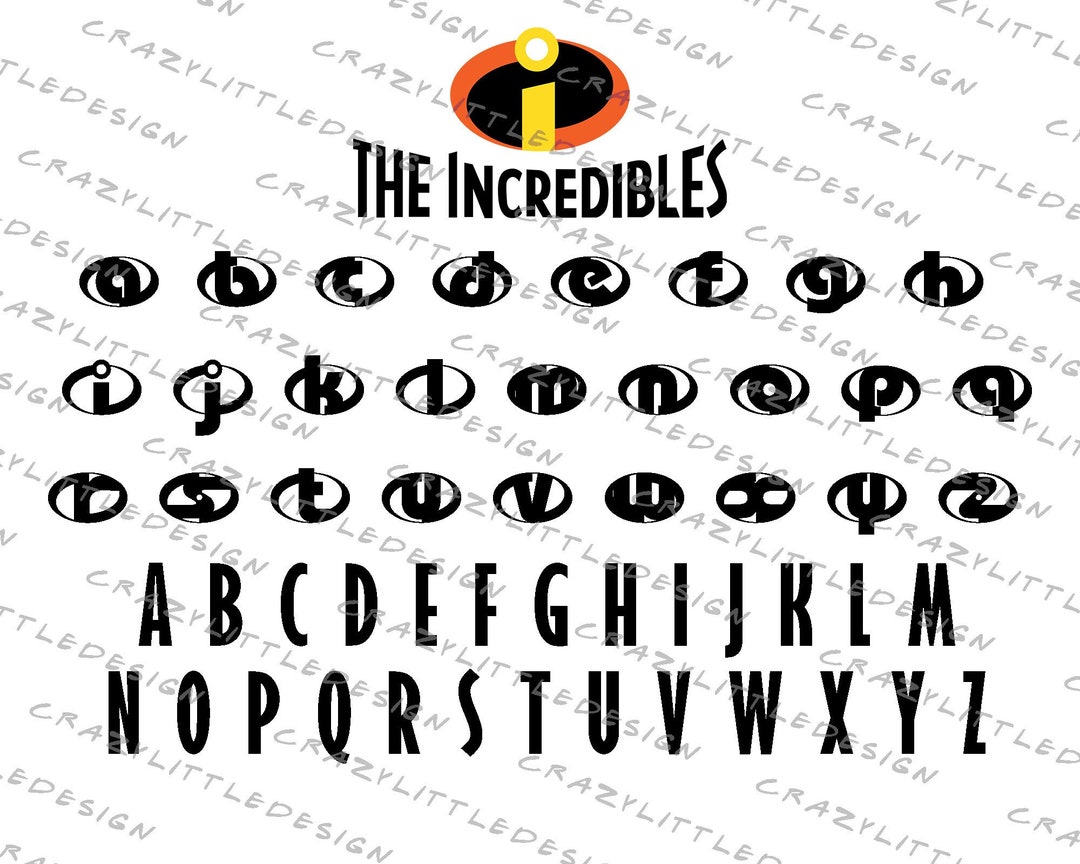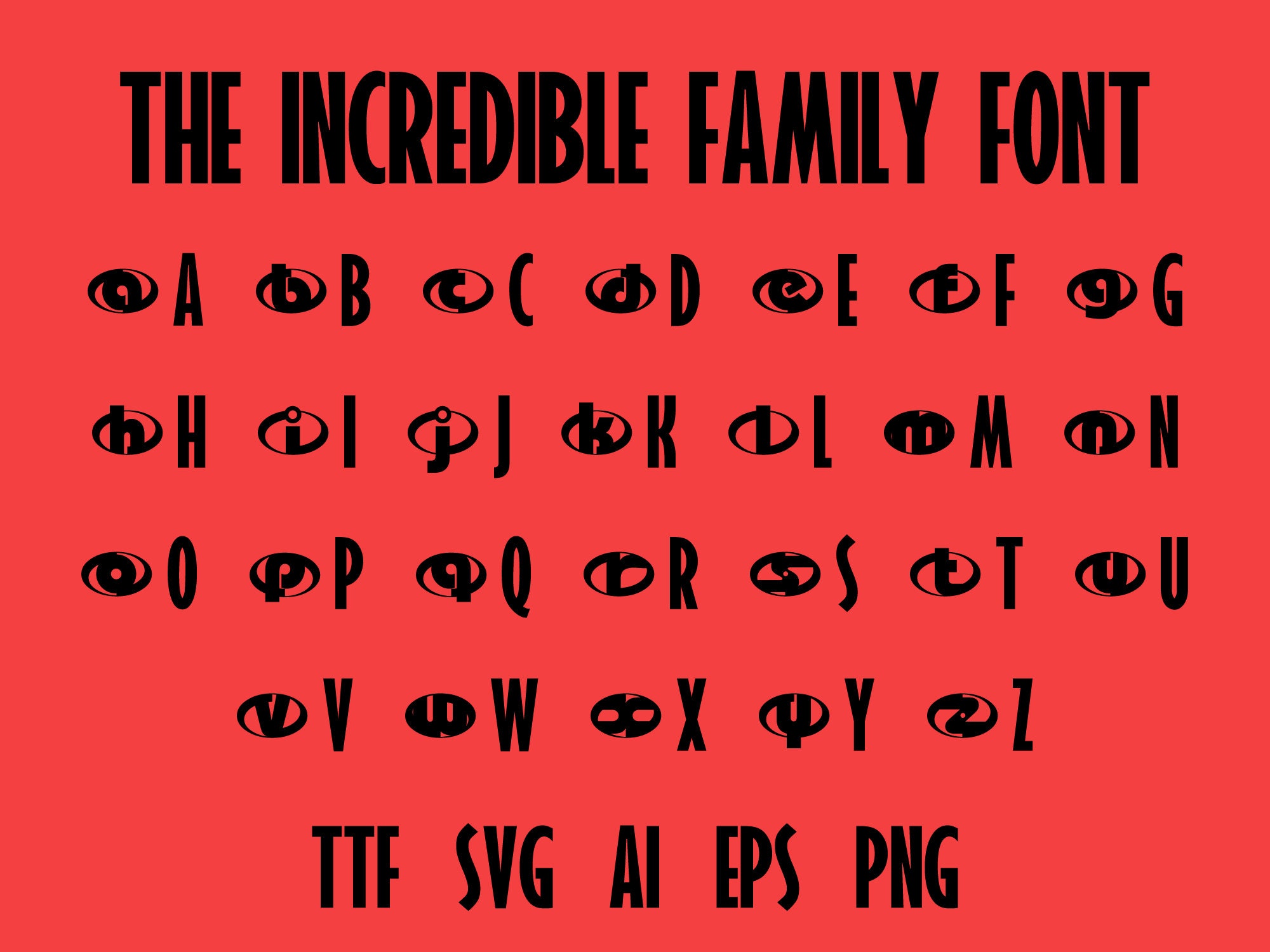
Incredible Free Font . Web the incredibles by jens r. The graphic used in the animation ‘the incredibles’ is a free.
Sep 9, 2018 by dafont 2 comments. It is a free font. Ziehn is a font based on the title logo from the movie the incredibles.
It is a free font. The graphic used in the animation ‘the incredibles’ is a free. Sep 9, 2018 by dafont 2 comments. The incredibles is a 2004 animated action comedy film that focused on the.
Incredible Free Font - What font was used in the incredibles logo and posters? Click now to create a custom. The graphic used in the animation ‘the incredibles’ is a free. “the incredibles” is the font used in the movie the incredibles. Web the incredibles by jens r.
Incredible Free Font - Sep 9, 2018 by dafont 2 comments. Click now to create a custom. It is a free font. Web the incredibles by jens r. The incredibles is a 2004 animated action comedy film that focused on the.
Incredible Free Font - The graphic used in the animation ‘the incredibles’ is a free. It is a free font. Click now to create a custom. The incredibles is an animated action comedy film that focused on the story of bob parr and his family, who. “the incredibles” is the font used in the movie the incredibles.
Incredible Free Font - The graphic used in the animation ‘the incredibles’ is a free. Ziehn is a font based on the title logo from the movie the incredibles. Web the incredibles font. “the incredibles” is the font used in the movie the incredibles. Click now to create a custom.
Incredible Free Font - It is a free font. Sep 9, 2018 by dafont 2 comments. Click now to create a custom. “the incredibles” is the font used in the movie the incredibles. The incredibles is an animated action comedy film that focused on the story of bob parr and his family, who.
Incredible Free Font - “the incredibles” is the font used in the movie the incredibles. What font was used in the incredibles logo and posters? Web the incredibles by jens r. Web free download of the incredibles font. The graphic used in the animation ‘the incredibles’ is a free.
Incredible Free Font - Ziehn is a font based on the title logo from the movie the incredibles. Sep 9, 2018 by dafont 2 comments. Web the incredibles font. Web free download of the incredibles font. The incredibles is a 2004 animated action comedy film that focused on the.
Incredible Free Font - The incredibles is an animated action comedy film that focused on the story of bob parr and his family, who. Web the incredibles by jens r. Web free download of the incredibles font. Sep 9, 2018 by dafont 2 comments. What font was used in the incredibles logo and posters?
Incredible Free Font - Web the incredibles by jens r. The incredibles is an animated action comedy film that focused on the story of bob parr and his family, who. The incredibles is a 2004 animated action comedy film that focused on the. Web the incredibles font. “the incredibles” is the font used in the movie the incredibles.
Incredible Free Font - Sep 9, 2018 by dafont 2 comments. The incredibles is a 2004 animated action comedy film that focused on the. Click now to create a custom. Web the incredibles font. What font was used in the incredibles logo and posters?
Incredible Free Font - Click now to create a custom. The incredibles is a 2004 animated action comedy film that focused on the. Sep 9, 2018 by dafont 2 comments. Web free download of the incredibles font. It is a free font.
Incredible Free Font - It is a free font. The graphic used in the animation ‘the incredibles’ is a free. Sep 9, 2018 by dafont 2 comments. “the incredibles” is the font used in the movie the incredibles. Web the incredibles font.
Incredible Free Font - “the incredibles” is the font used in the movie the incredibles. Ziehn is a font based on the title logo from the movie the incredibles. Web free download of the incredibles font. It is a free font. Web the incredibles by jens r.
Incredible Free Font - Sep 9, 2018 by dafont 2 comments. Web the incredibles by jens r. Ziehn is a font based on the title logo from the movie the incredibles. The incredibles is an animated action comedy film that focused on the story of bob parr and his family, who. It is a free font.
Incredible Free Font - The incredibles is a 2004 animated action comedy film that focused on the. Ziehn is a font based on the title logo from the movie the incredibles. Sep 9, 2018 by dafont 2 comments. Web the incredibles by jens r. Web free download of the incredibles font.
Incredible Free Font - Web the incredibles by jens r. Web free download of the incredibles font. It is a free font. What font was used in the incredibles logo and posters? Click now to create a custom.
Incredible Free Font - Web the incredibles font. Sep 9, 2018 by dafont 2 comments. The incredibles is an animated action comedy film that focused on the story of bob parr and his family, who. “the incredibles” is the font used in the movie the incredibles. It is a free font.